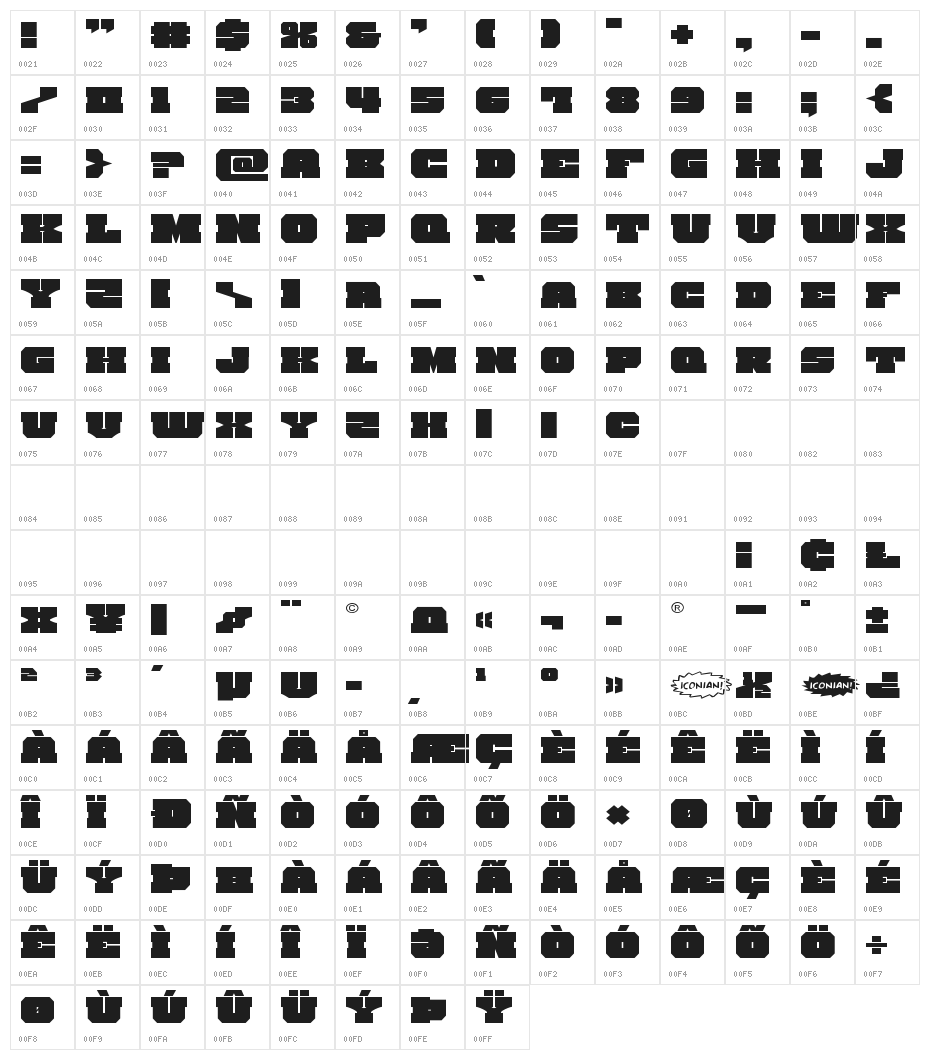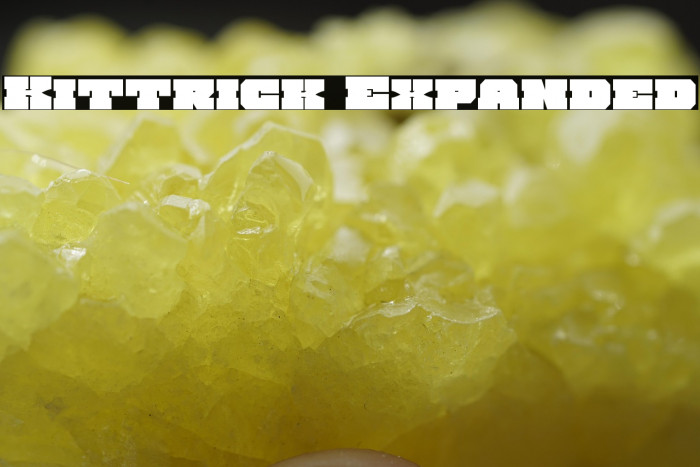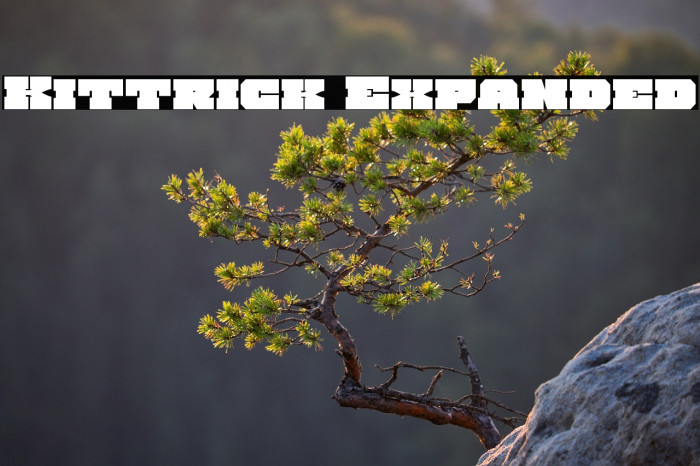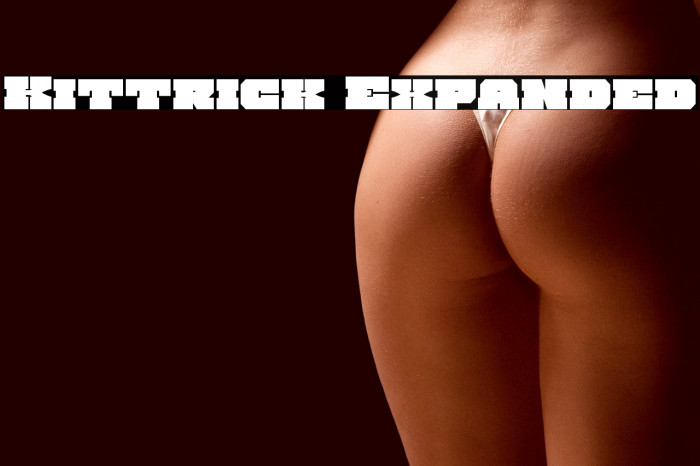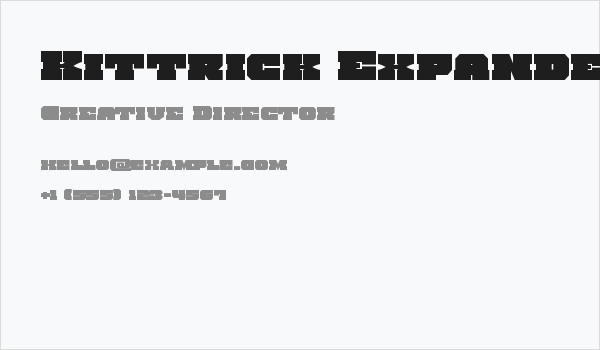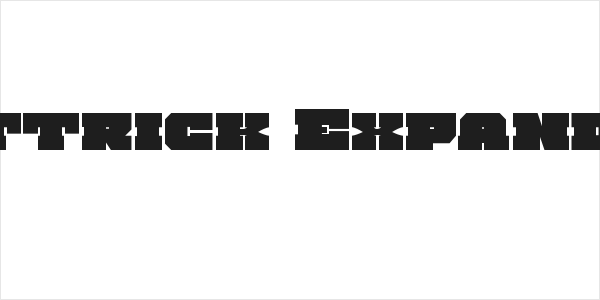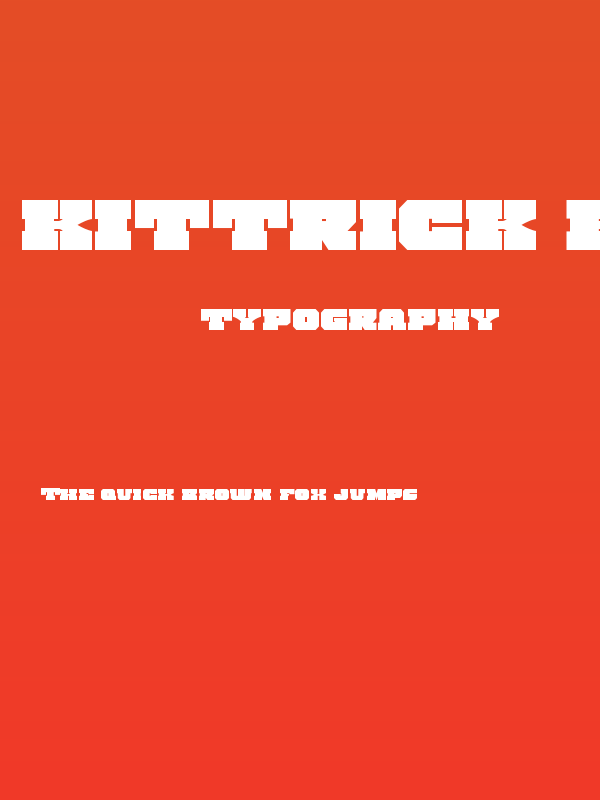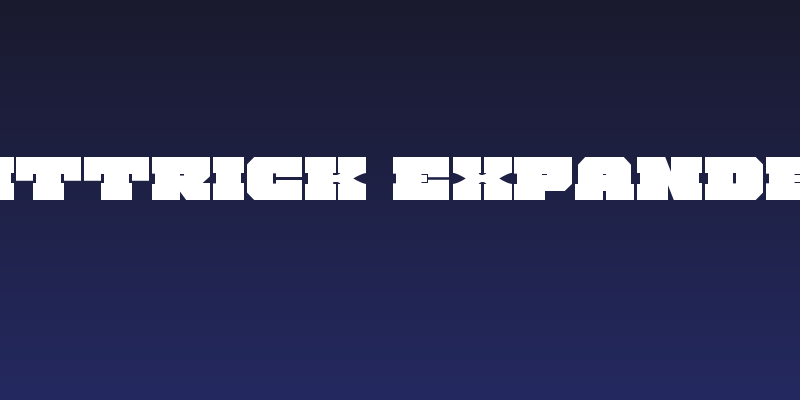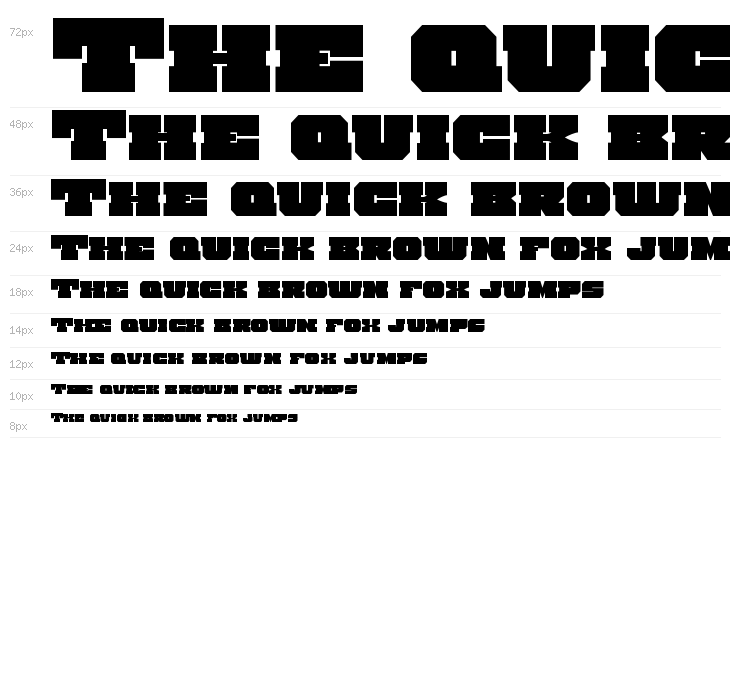
Kittrick Expanded Font
Kittrick Expanded Description
This font features a bold and robust design with a distinctly geometric and blocky appearance. The characters are constructed with thick, uniform strokes that give them a strong presence. The edges are sharp and angular, contributing to a modern and industrial aesthetic. The uppercase and lowercase letters maintain a consistent style, while the numerals and special characters are designed to match the boldness of the alphabet. The overall look is impactful and attention-grabbing, making it suitable for projects that require a strong visual statement.
Proposed ProjectsIdeal for posters, headlines, branding, and any design requiring a strong, impactful typeface.